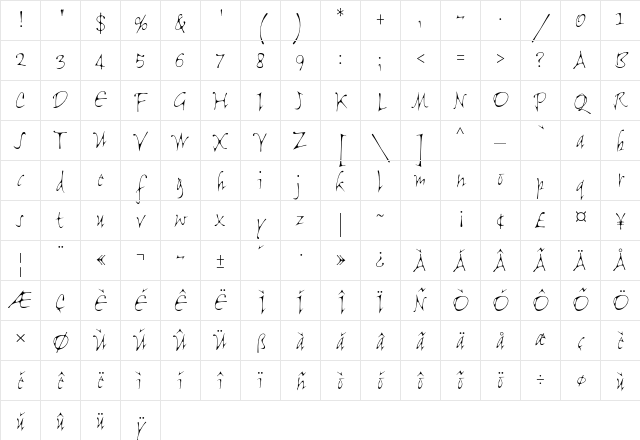
Flight Std Regular Free Font
Flight Std Regular
Designer: Timothy Donaldson
Design Context for Flight Std
Flight Std is a composed and adaptable typeface that performs quietly and consistently across a wide range of design contexts. Its slender proportions lend an understated elegance to any composition.